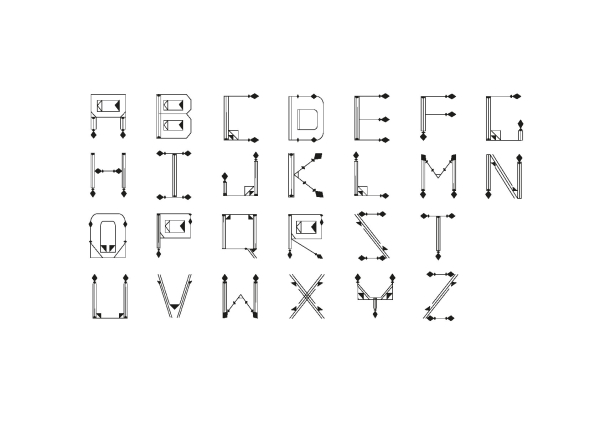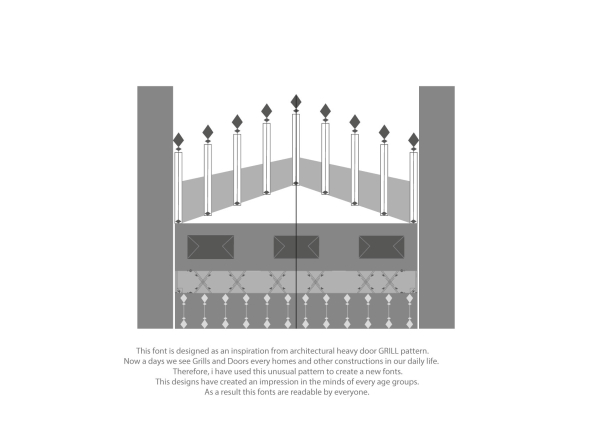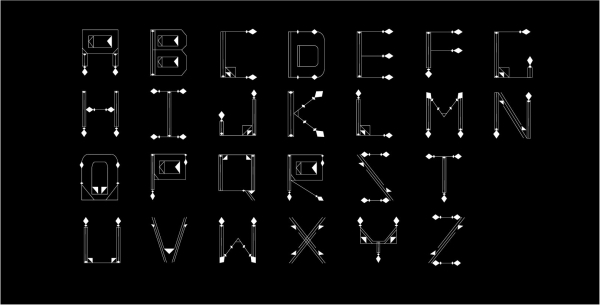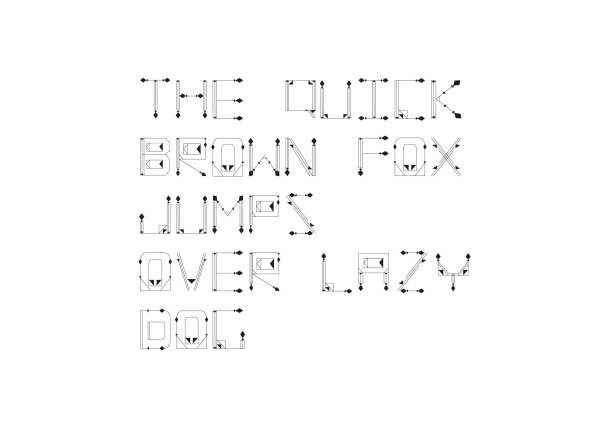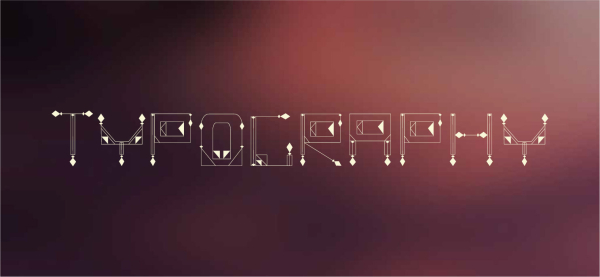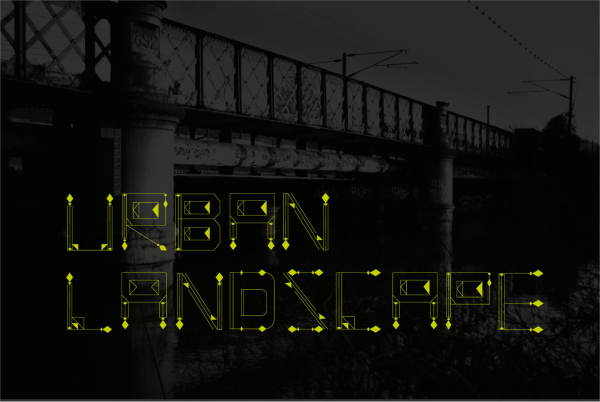
Grill Typo
This font is designed as an inspiration from architectural heavy door GRILL pattern.Now a days we see Grills and Doors every homes and other constructions in our daily life. Therefore, I have used this unusual pattern to create a new fonts. This designs have created an impression in the minds of every age groups. As a result this fonts are readable by everyone.
Designer: Jatin Pandya
Publisher: Jatin Pandya